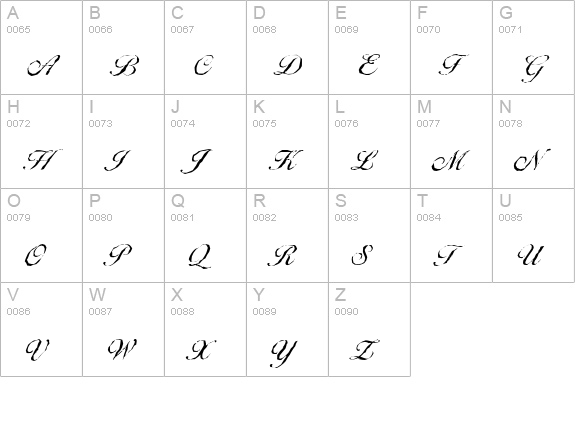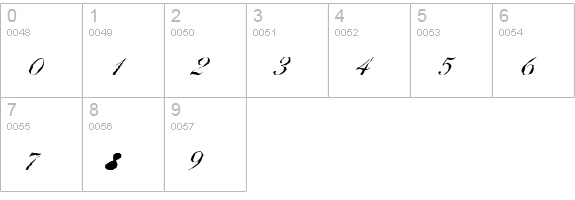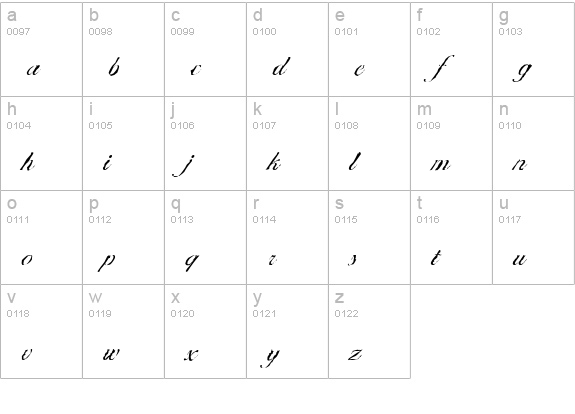
BallantinesAntique-Light-Regular is a refined, elegant variant in the BallantinesAntique typeface family \xE2\x80\x94 well suited to elegant body text, refined sub-headings, and luxury branding.
BallantinesAntique-Light-Regular is a timeless and elegant font that exudes a sense of vintage charm and sophistication. With its delicate serifs and classic letterforms, this font is perfect for adding a touch of refinement to your designs. Whether you're working on invitations, posters, or branding materials, BallantinesAntique-Light-Regular is sure to make a lasting impression. The best part? This exquisite font is available for free download at FontsMarket.com. Embrace the beauty of BallantinesAntique-Light-Regular and elevate your projects with its graceful and timeless appeal. Download it today and add a touch of vintage elegance to your design arsenal.